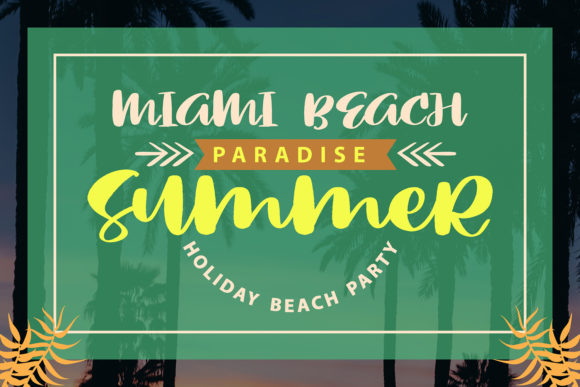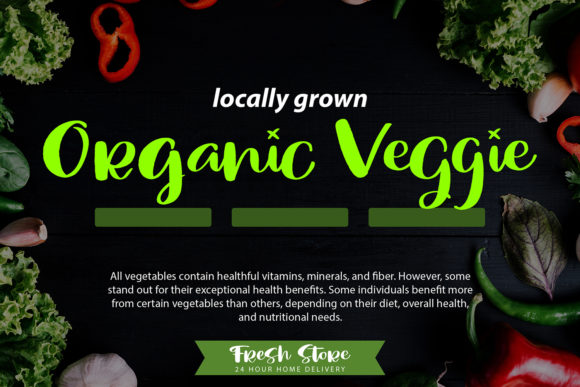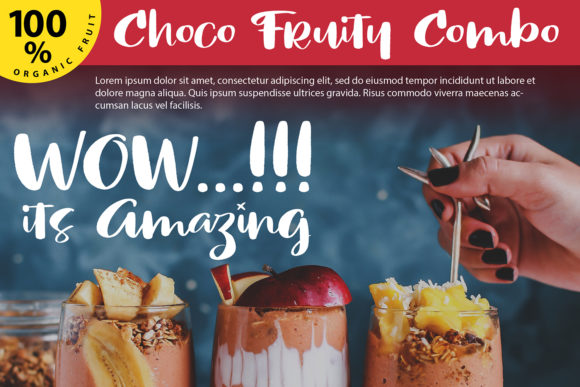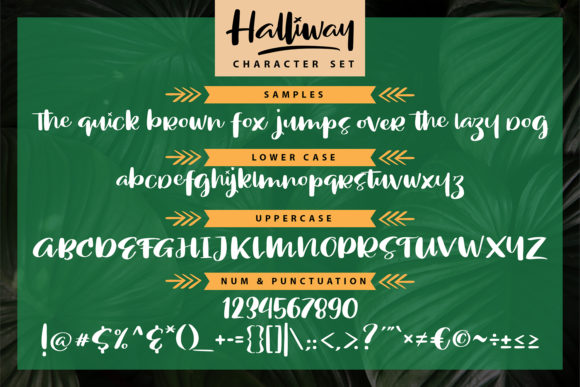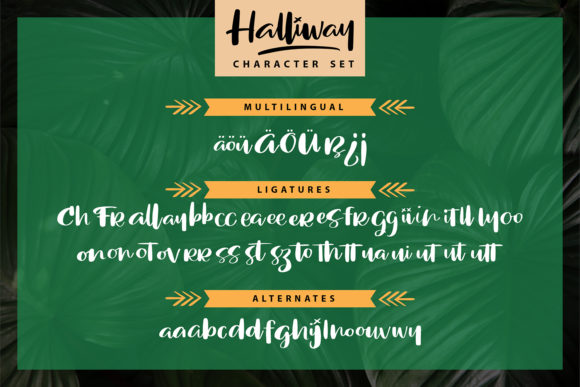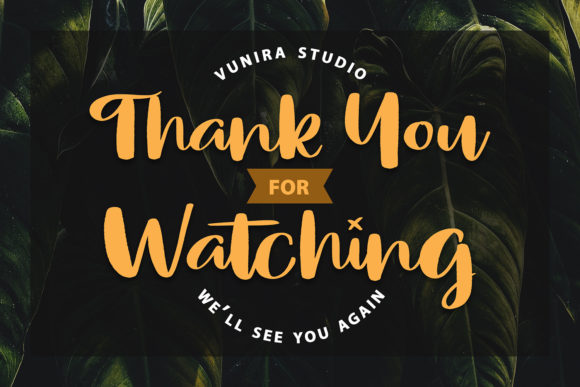
Unleashing Your Creativity with the Perfect Font
Have you ever stared at a blank page, feeling stuck and unsure of where to start? That’s where a great font comes in – a spark of inspiration that sets your creative juices flowing. For me, it’s the thrill of discovering a new font that perfectly captures the essence of a project. And that’s exactly what I want to share with you today: the delightful Halliway Font.
This bold and fun handwritten font is a game-changer for designers. Its quirky charm makes it incredibly versatile, suitable for a wide range of projects, from posters to social media graphics. Plus, with its PUA encoding, you can access all the glyphs and swashes with ease, taking your designs to the next level. Whether you’re a seasoned pro or just starting out, the Halliway Font is an invaluable addition to your design toolkit.
Halliway Font Key Features
- Unique Characteristics: Halliway Font features a distinctive, modern script style with elegant connections between letters, making it ideal for titles, headings, and other display typography.
- Font Pairing: Halliway Font is designed to pair well with a range of sans-serif fonts, such as Open Sans and Lato, allowing for a balanced and harmonious typography.
Halliway Font Review
I recently had the chance to work with the Halliway font, and I must say, it’s a unique and stylish choice. ✨ The font’s bold and modern aesthetic is perfect for making a statement in any design project. I particularly liked its versatility in being able to be used for both headings and body text.
One of the standout features of Halliway is its wide range of weights and styles, which makes it easy to customize and tailor the font to fit your specific design needs. ✨ I also appreciated the attention to detail in the font’s design, with subtle flourishes and nuances that add depth and character to any text.
However, I did encounter some limitations while working with Halliway. ⚠️ At smaller font sizes, the font can become somewhat difficult to read, and the bold weights can be overwhelming. Additionally, the font’s more ornate styles can be a bit too flashy for some designs, which may detract from the overall aesthetic.
- Works well for bold and modern designs
- Highly customizable with multiple weights and styles
- Subtle flourishes and nuances add depth and character
Overall, I would recommend Halliway font for designers who want to add a touch of modern flair to their projects. While it may have some limitations, its unique style and versatility make it a valuable addition to any design toolkit.
Some common use cases for Halliway Font include:
- Creating elegant and sophisticated logos.
- Designing invitations and wedding stationery.
- Adding a touch of elegance to business cards and resumes.
For best results, use Halliway Font in conjunction with high-quality images and design elements to create a cohesive and visually appealing design.
Alternatives to “Halliway Font” for Designers
Playfair Display is a luxurious and elegant script font ideal for high-end branding and advertising. It features intricate flourishes and connecting strokes that add a touch of sophistication to any design.
Playfair Display is similar to Halliway Font in its elegant and refined appearance, but it has a more ornate and luxurious feel. Use Playfair Display when you need to convey a sense of luxury and sophistication.